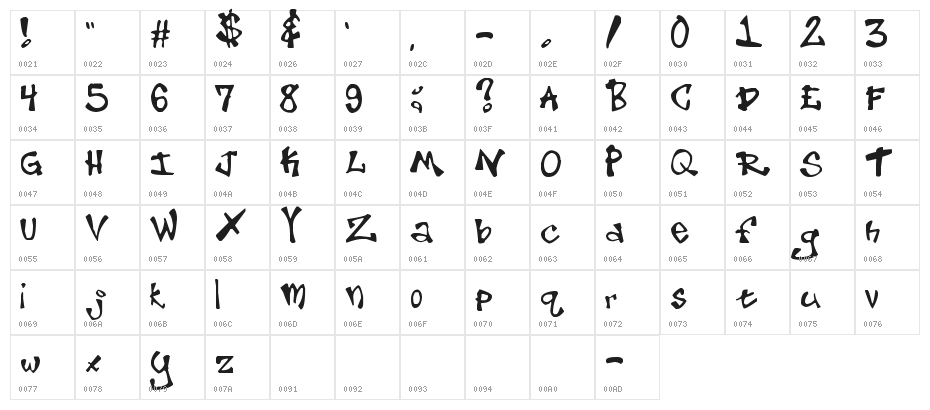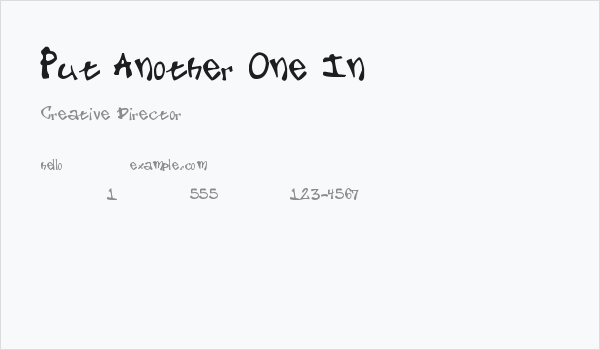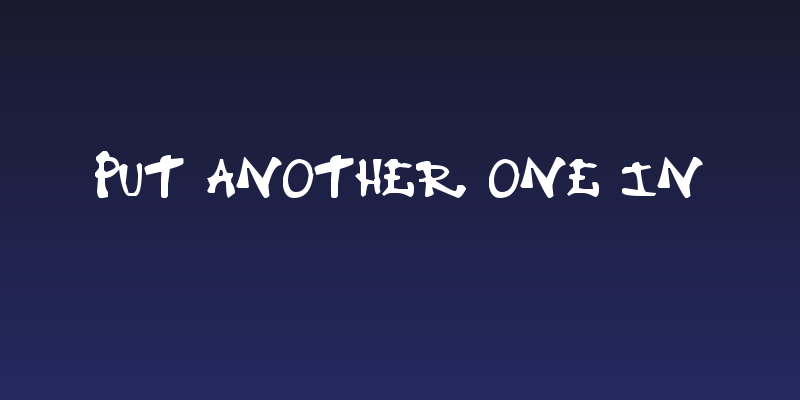
Put Another One In Font
Put Another One In Description
This font exhibits a playful and whimsical style, characterized by its irregular and dynamic letterforms. The uppercase and lowercase letters have a hand-drawn appearance, with varying stroke thicknesses that add a sense of movement and energy. The numbers and special characters maintain this lively aesthetic, making the font suitable for creative and informal applications. The overall design is bold and eye-catching, with a unique charm that stands out in any context.
| Proposed Projects | Ideal for children's books, creative posters, playful branding, and informal invitations. |